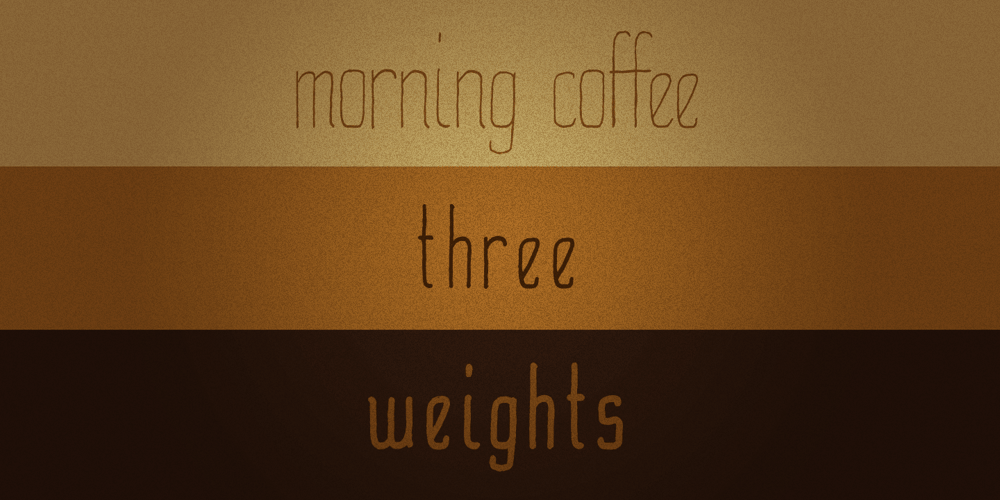
Morning Coffee Font Family was designed by Sebastian Cabaj and published by Sebastian Cabaj. Morning Coffee contains 3 styles and family package options. Hand-drawn typeface, inspired by sunny mornings with cup of good coffee.